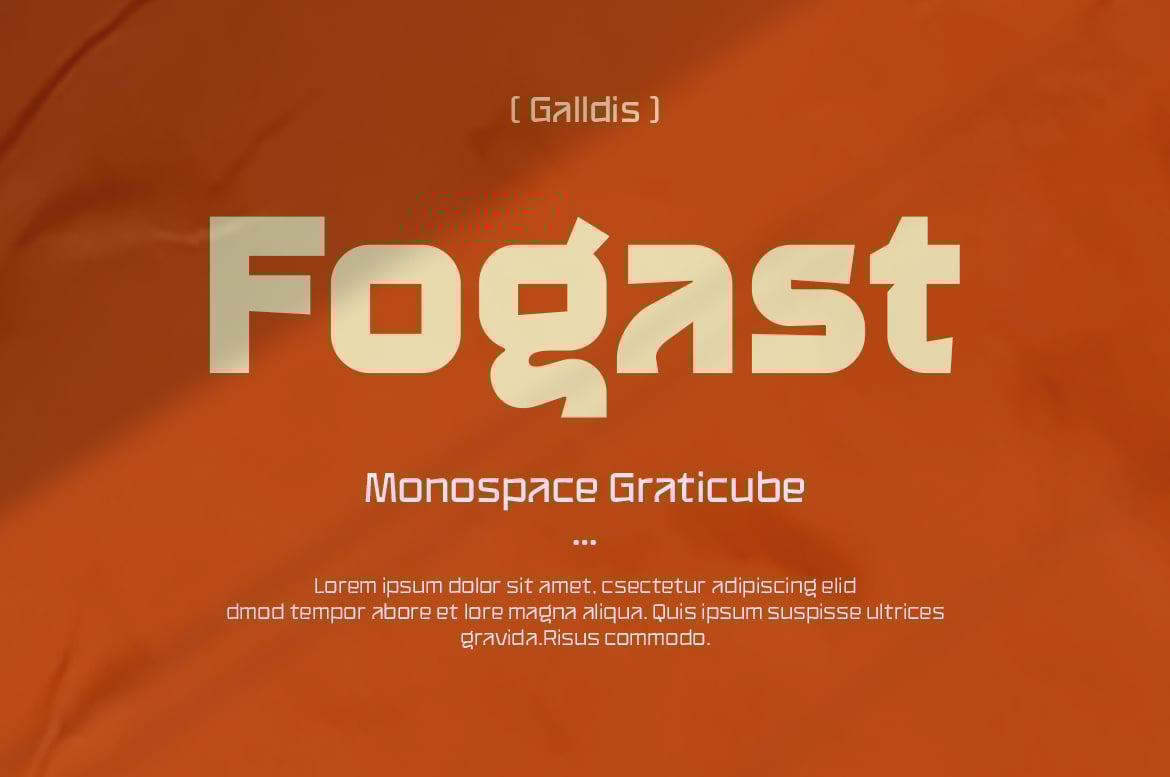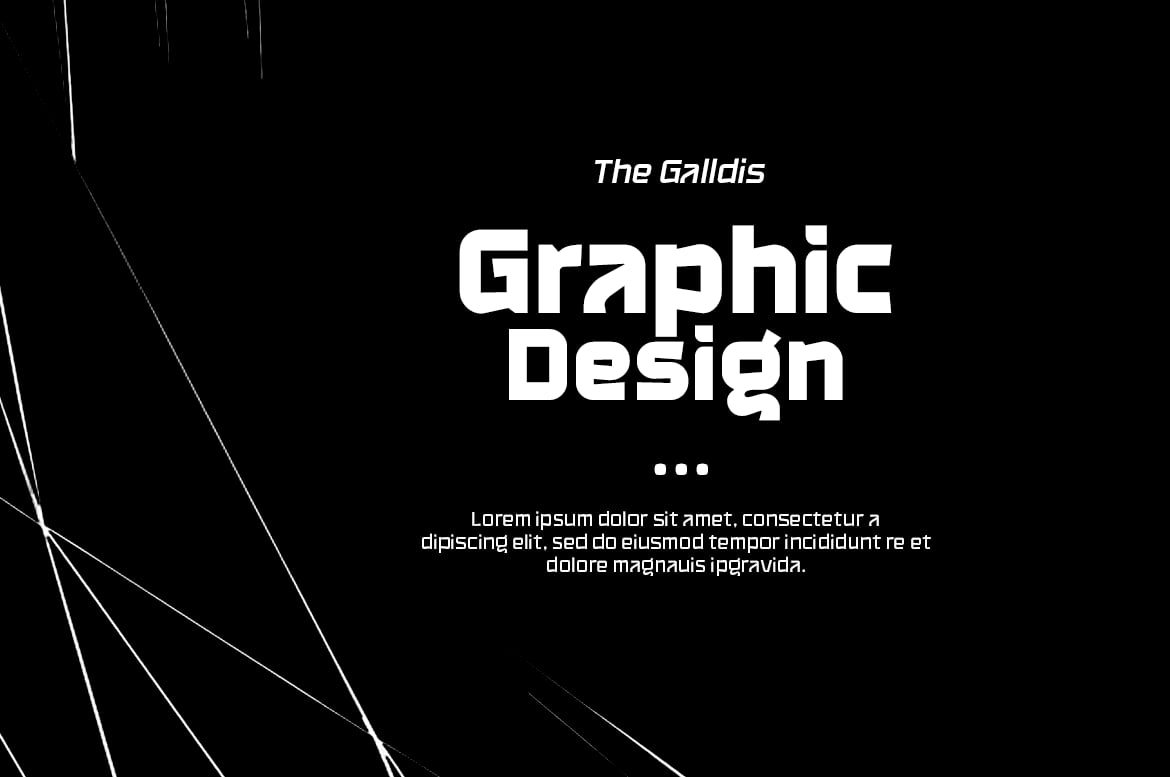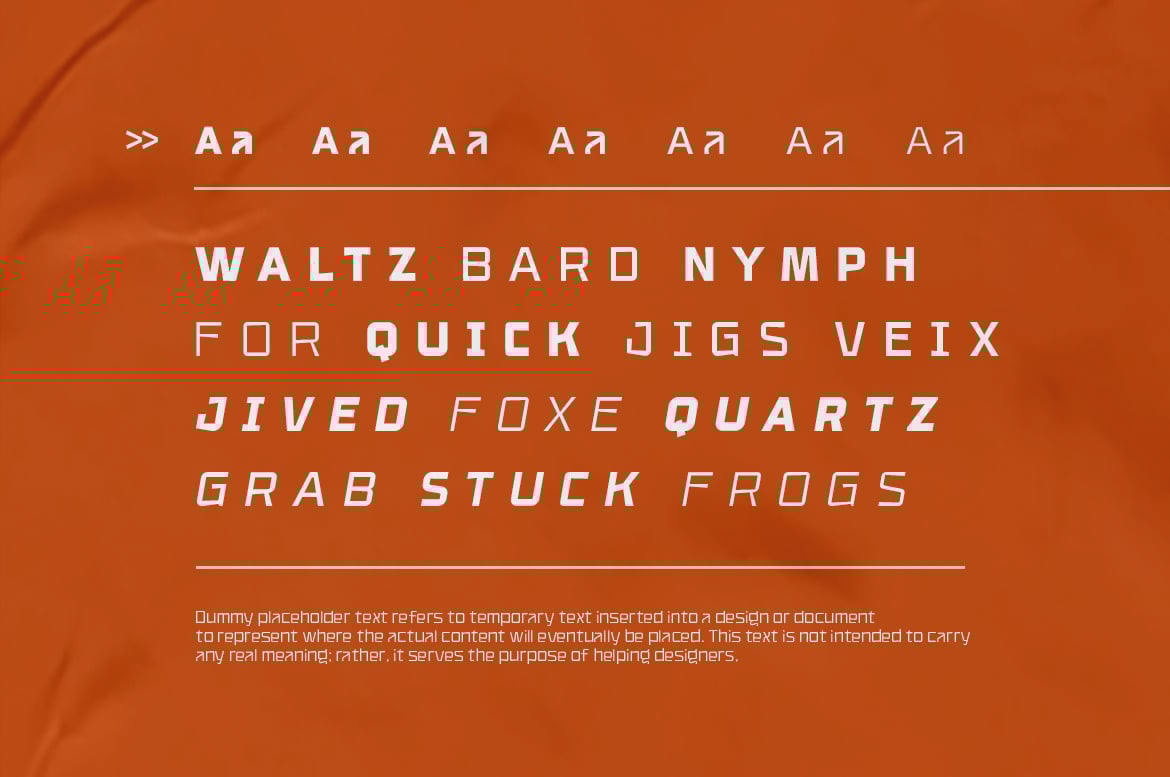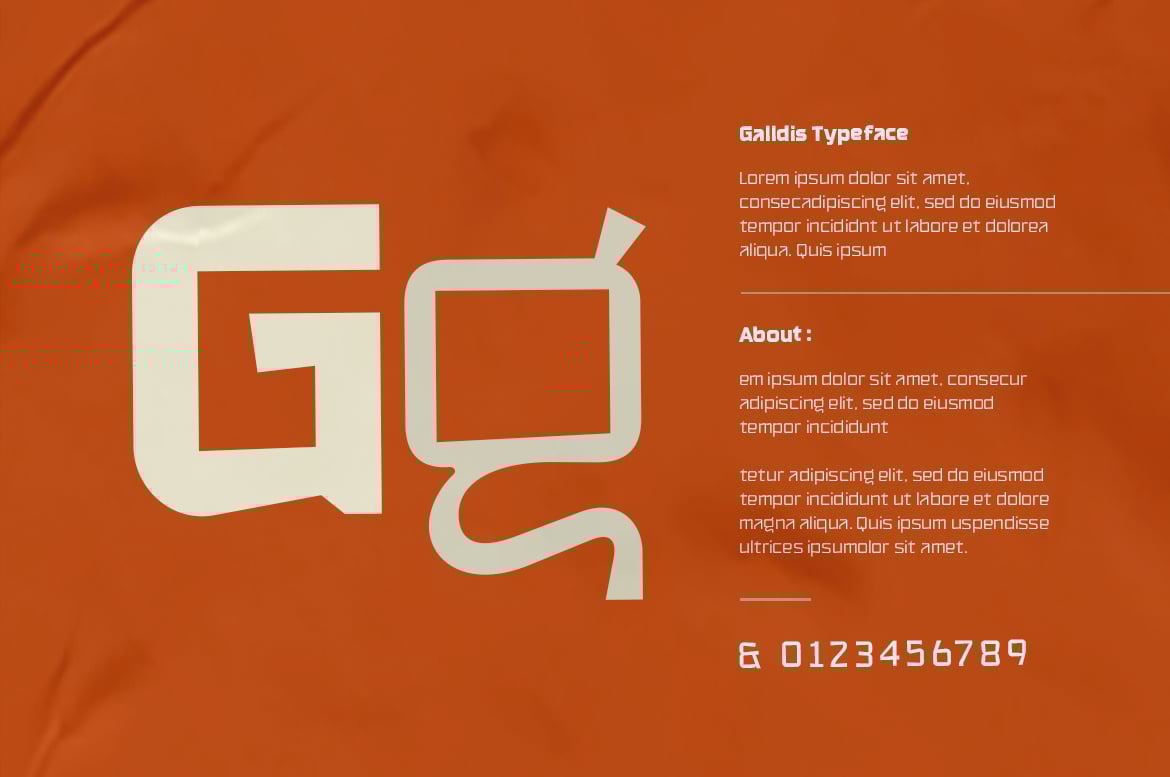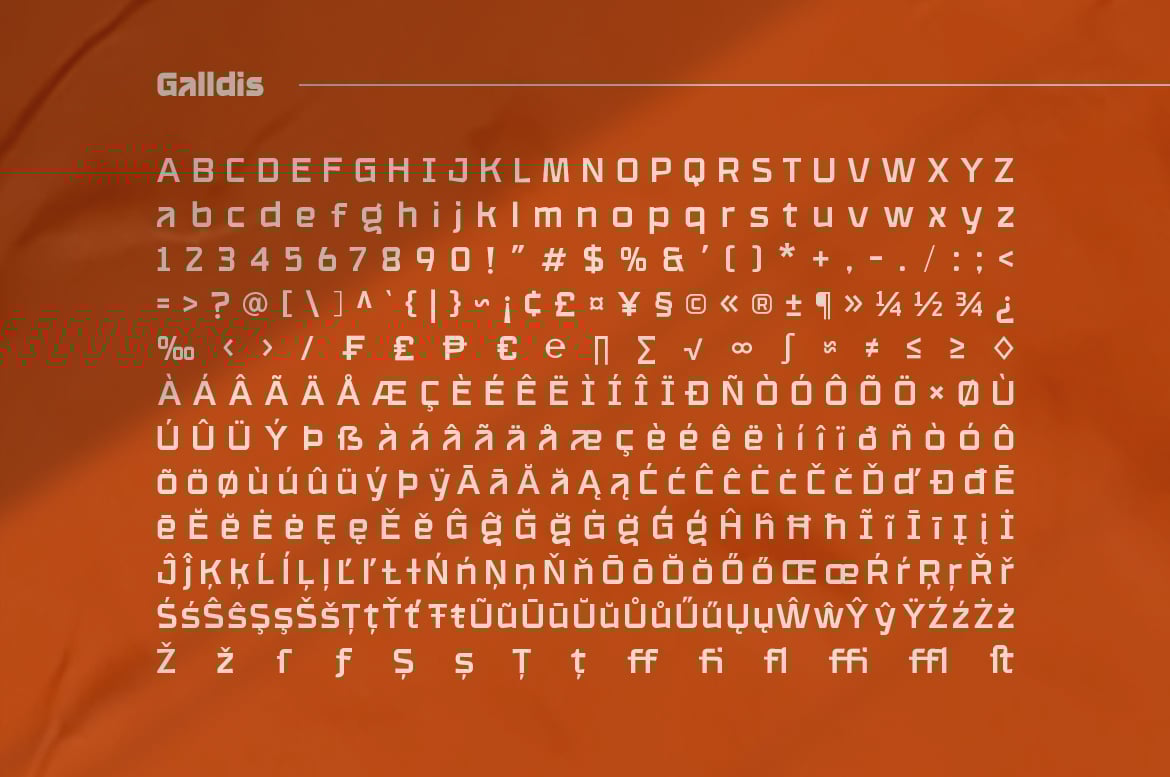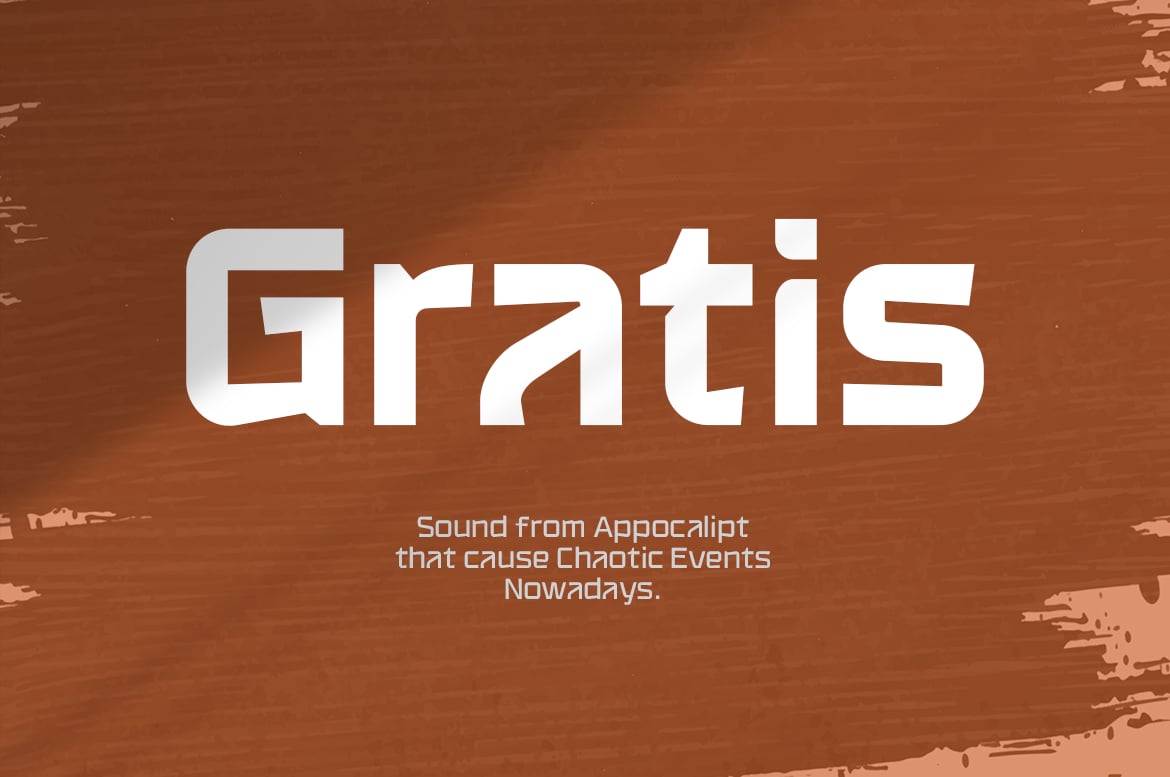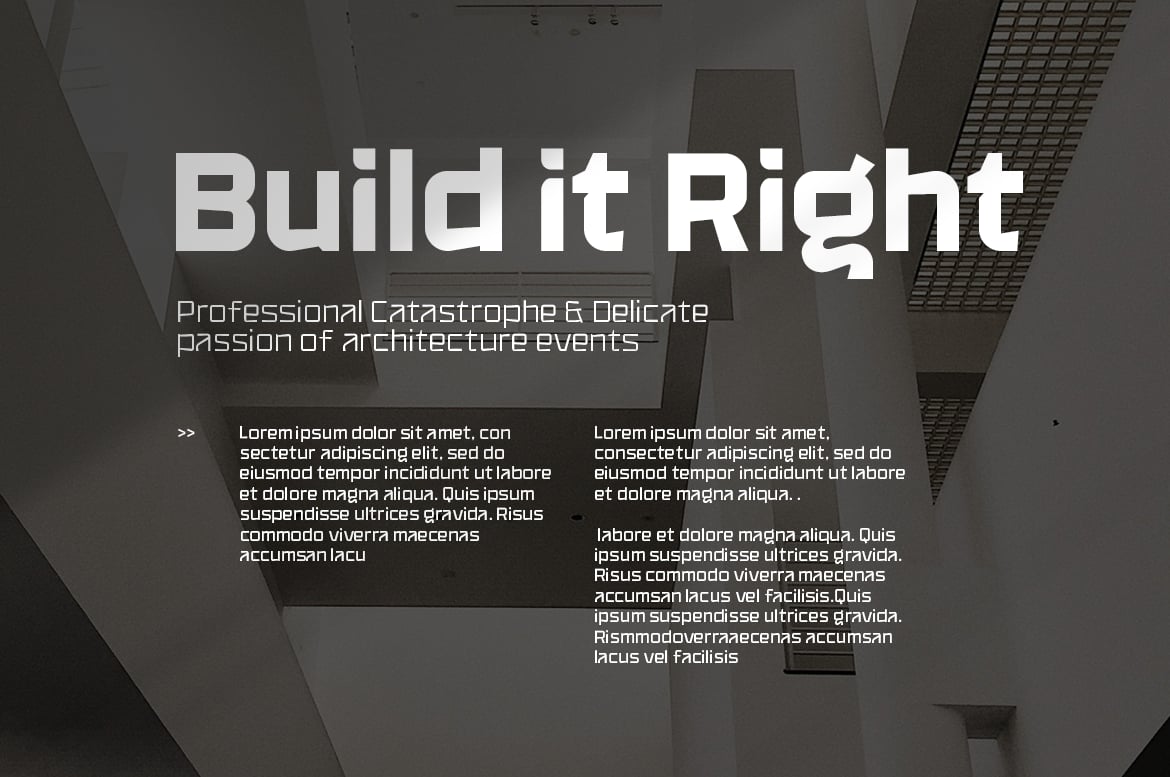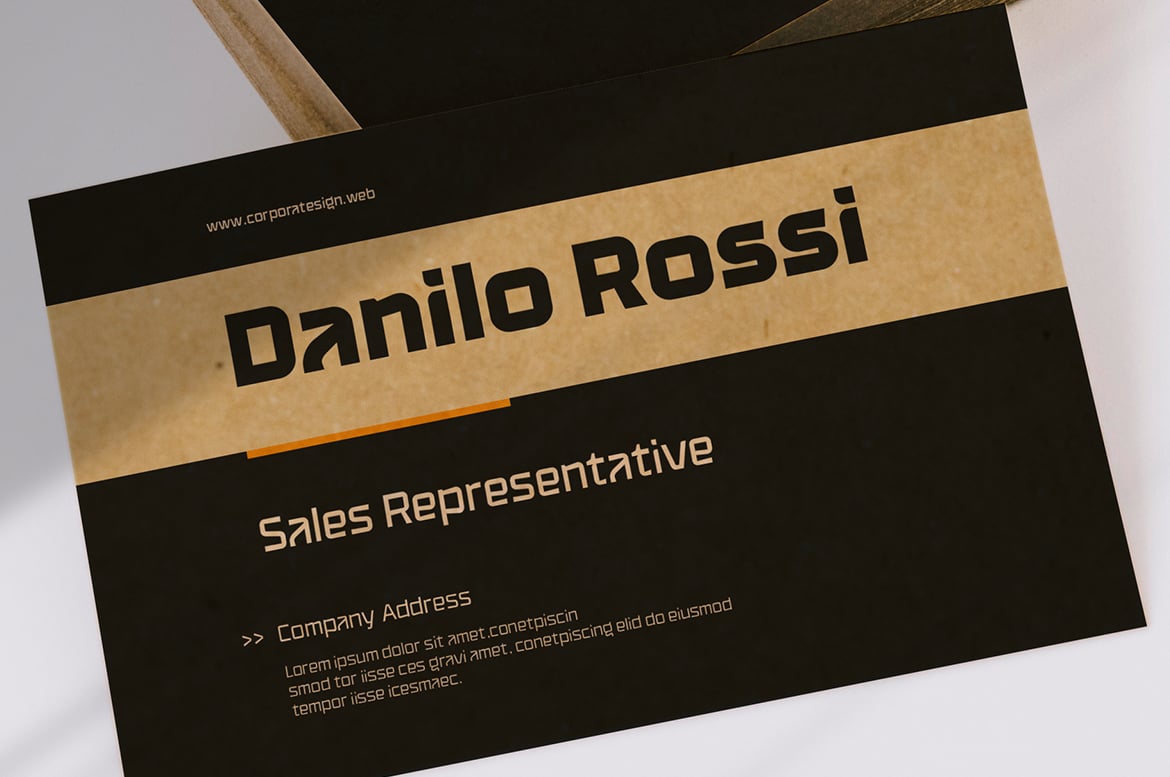
Galldis – Variable Sans Serif Font
Galldis is a dynamic and versatile variable sans serif font, perfect for editorial design and logotype applications. With seven weights and corresponding italics, it offers a full range of typographic possibilities. Its modern and creative aesthetic brings a fresh, sophisticated touch to any project. Designed for clarity and impact, Galldis excels in both print and digital mediums. With multilingual support, it ensures seamless communication across various languages. Whether for bold branding or refined editorial layouts, Galldis delivers elegance and functionality in one powerful typeface..
- Modern Sans Serif Font
- variable Font
- Basic Latin Glyphs
- Numeral and Punctuation
- Currencies